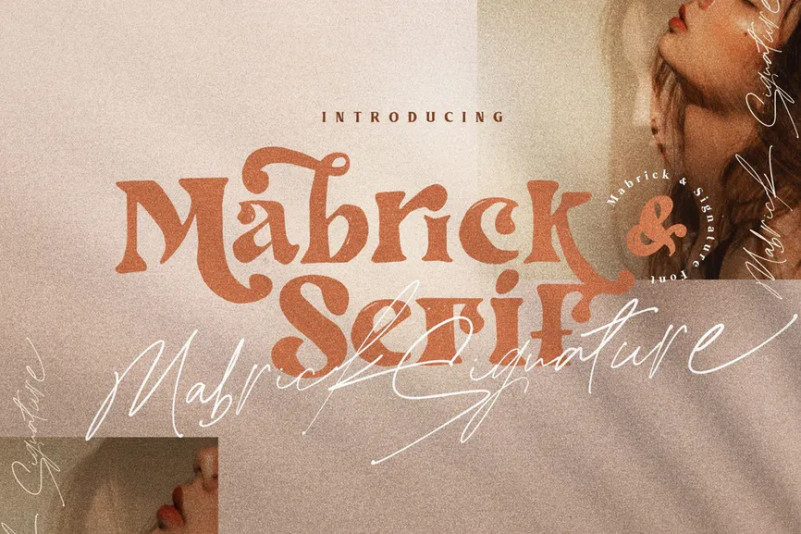
Mabrick Font
Mabrick Serif Font is a beautiful serif font comes with alternative character. There includes all basic glyphs with Non-English characters. It can be used for headlines, posters, branding, packaging, presentations, logo, quotes, titles, magazines headings, web layouts, advertising, invitations, packaging design, books, and nearly any creative design.